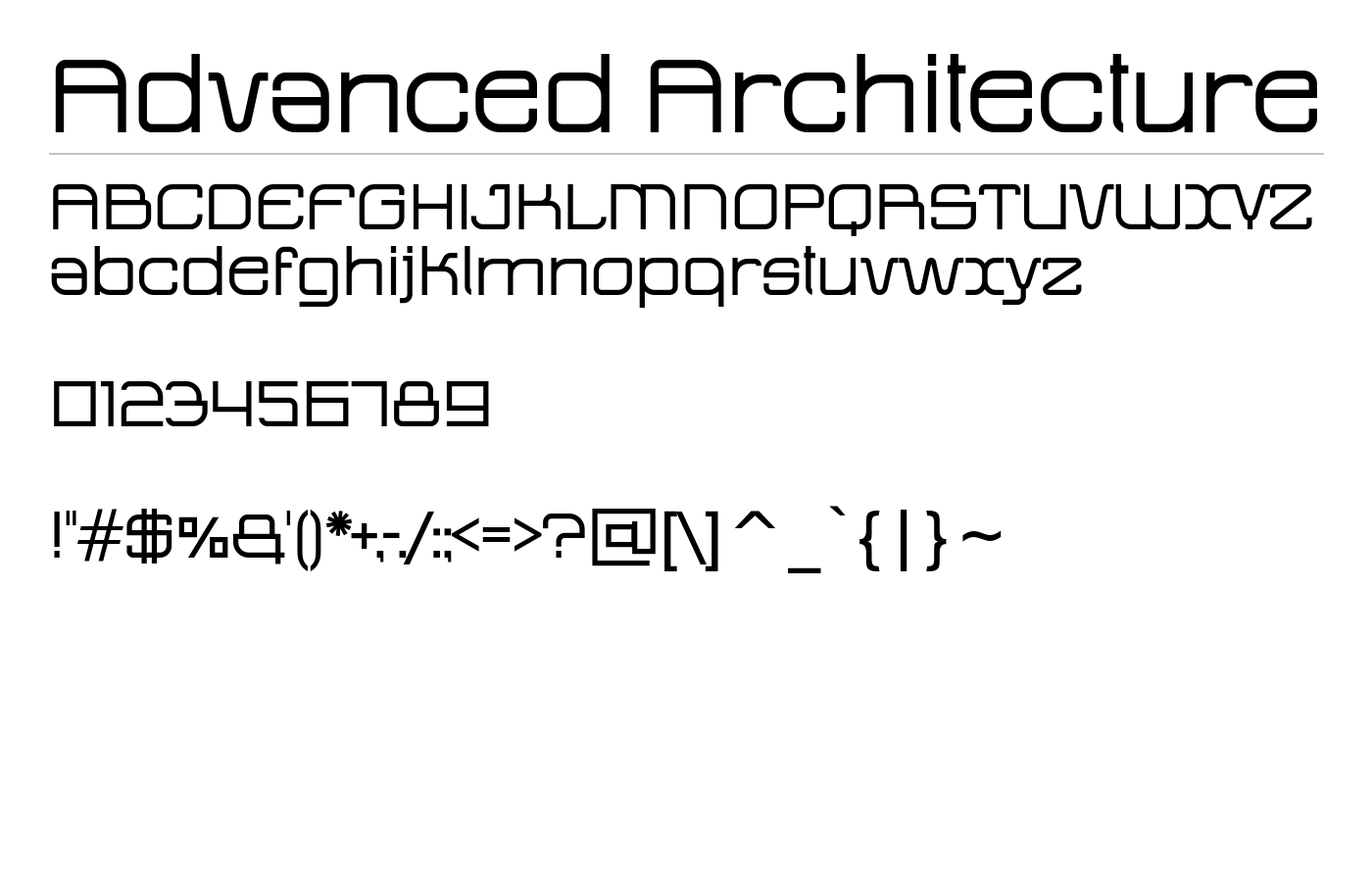
Advanced Architecture is a sleek, modern sans serif font characterized by a geometric, almost technical style with clean, thin strokes and consistent weight. Its distinct, squared shapes and open letterforms give it a futuristic and architectural feel, making it ideal for use in tech branding, editorial headlines, or design projects that call for a precise, minimalist aesthetic.
Advanced Architecture Font
About Advanced Architecture Font
| Font family | Advanced Architecture Font |